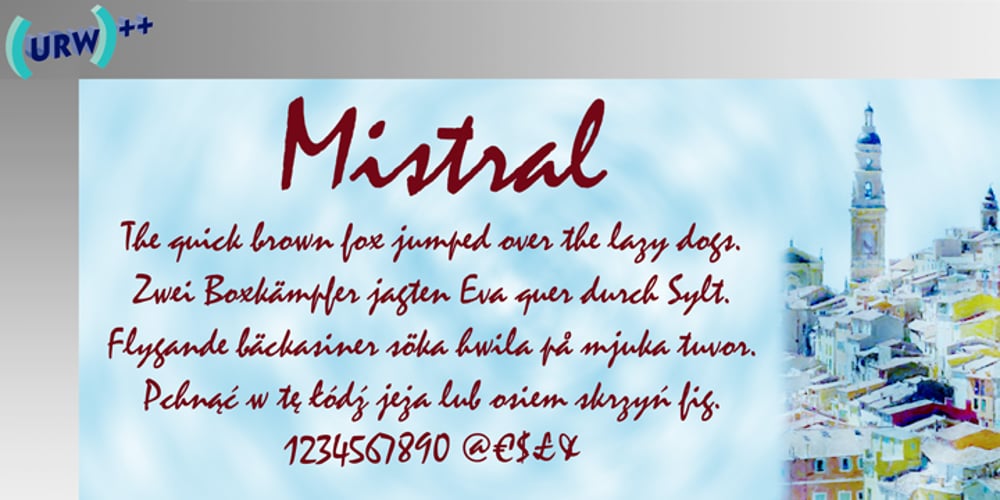
Mistral Font Family was designed by Roger Excoffon and published by URW Type Foundry. Mistral contains 1 styles and family package options. Named after the strong cold winds on Southern France, the Mistral font family is another original creation displaying the panache of the French graphic artist Roger Excoffon. Mistral is an informal script in which all letters link up in vigorous strokes. First issued in 1953, its brush-like stems look spontaneous and fresh. The descenders are fairly long and the whole alphabet has a distinctive and unforgettable effect on the page. Mistral is a good complement to sans serif typefaces. Mistral is a trademark of Heidelberger Druckmaschinen AG, which may be registered in certain jurisdictions, exclusively licensed through Linotype Library GmbH, a wholly owned subsidiary of Heidelberger Druckmaschinen AG.